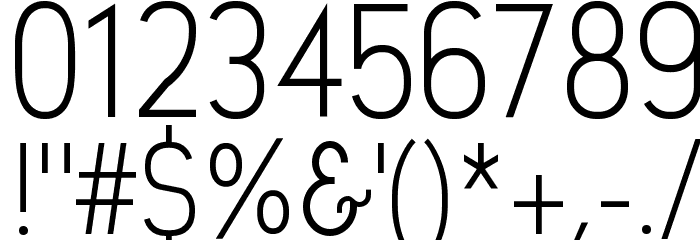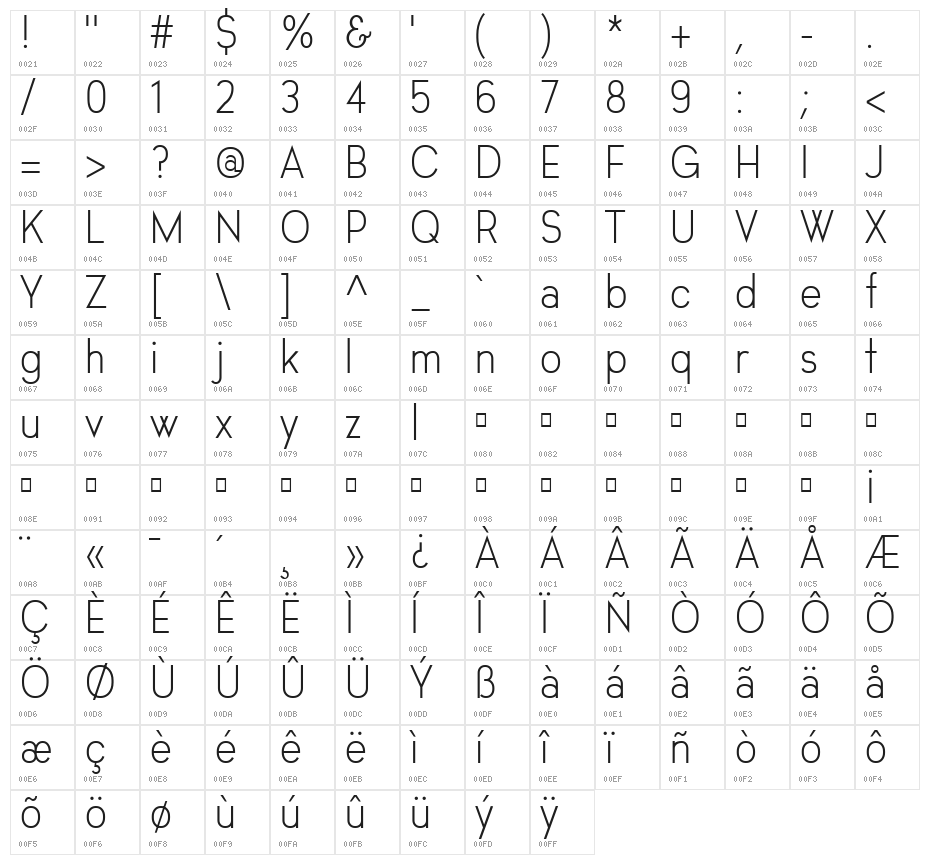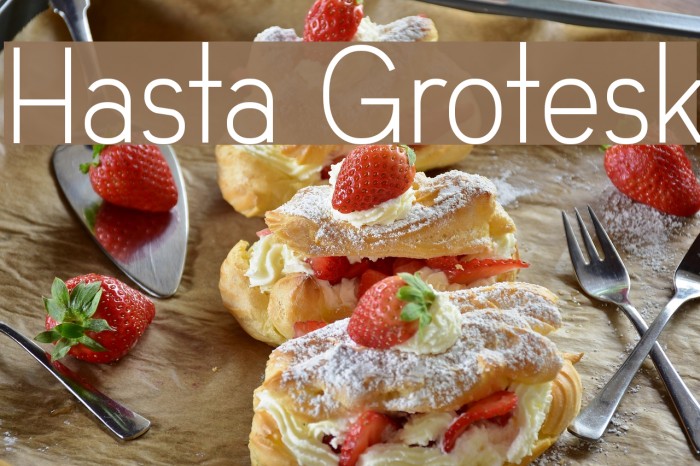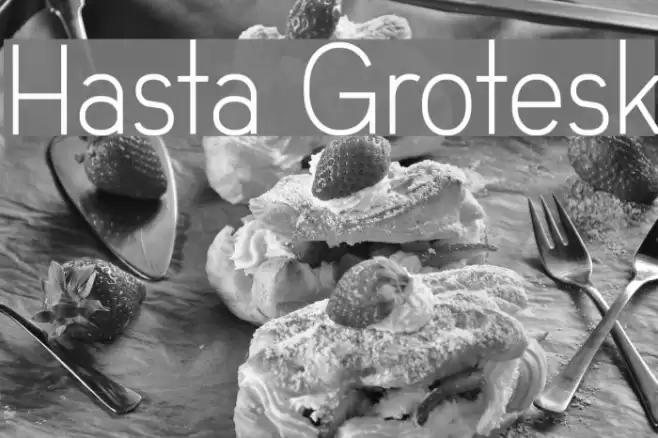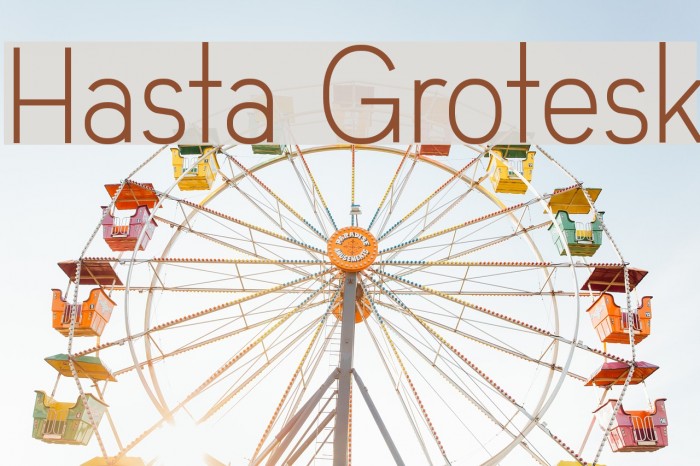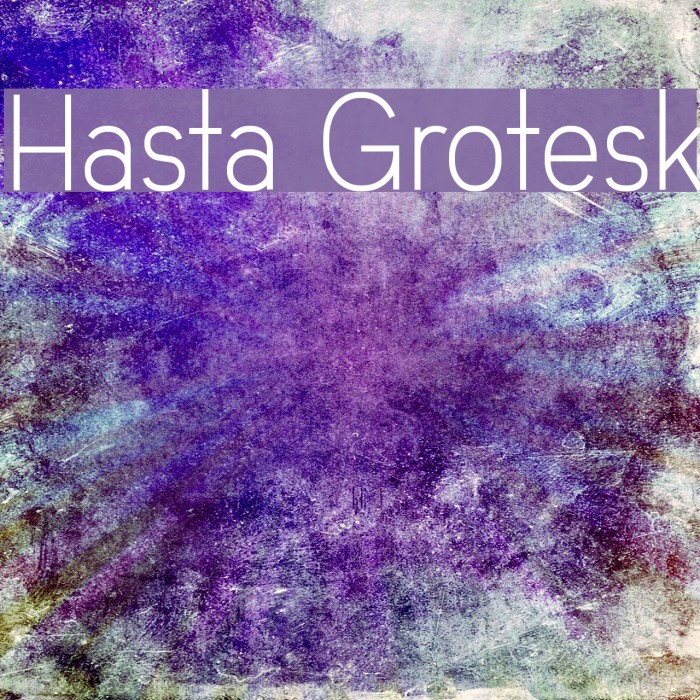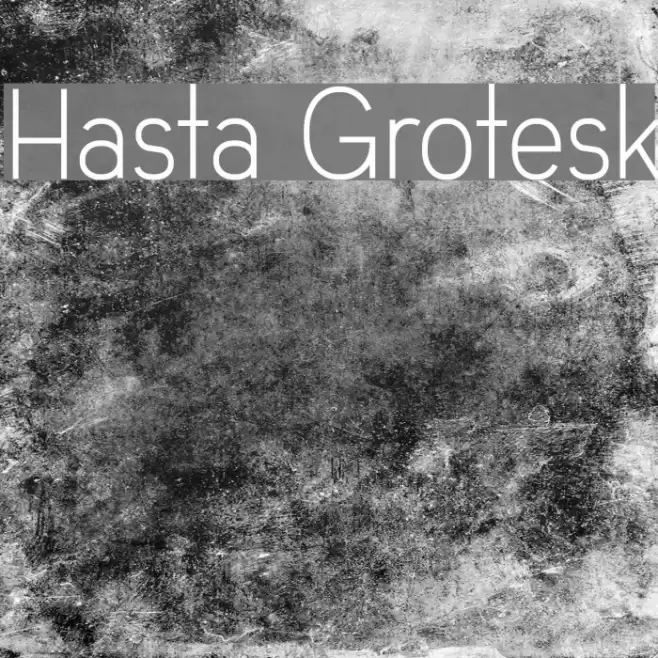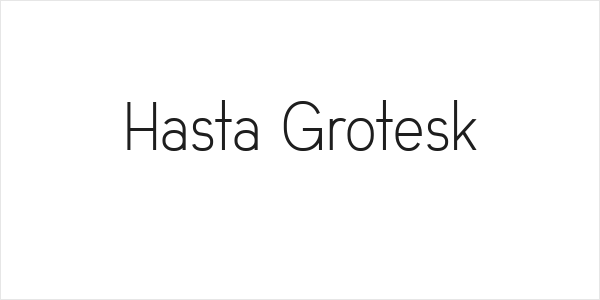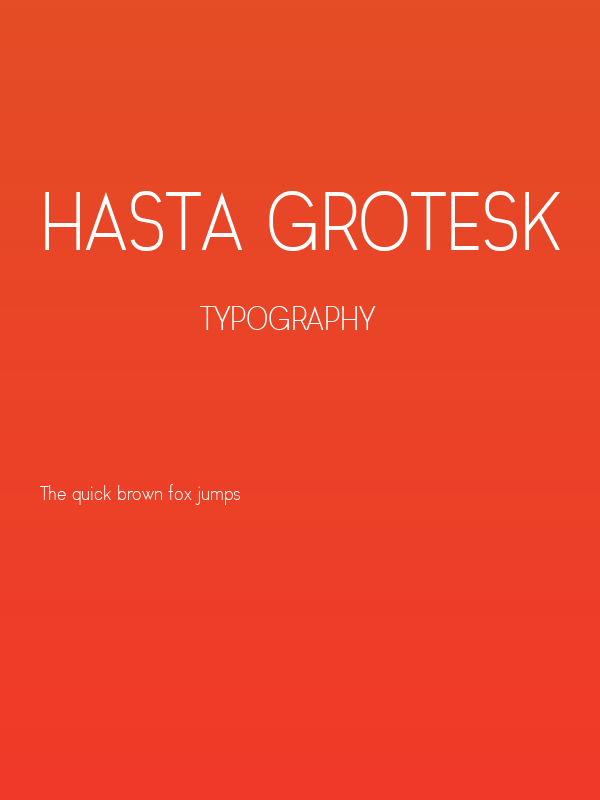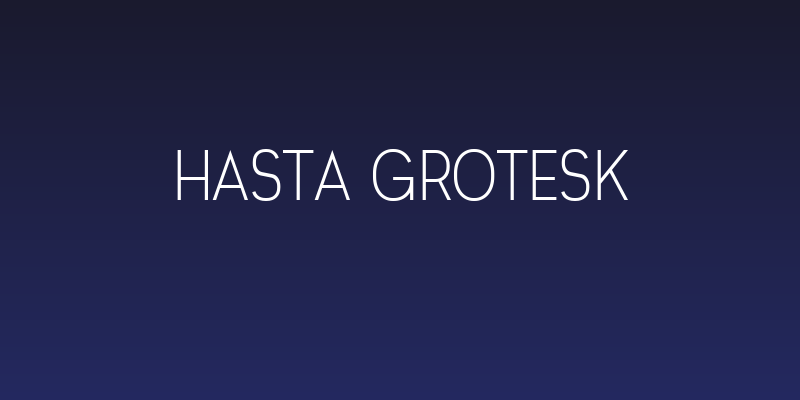
Hasta Grotesk Font
Hasta Grotesk Description
This font features a clean and modern sans-serif design with a geometric structure. The characters are evenly spaced, providing a balanced and harmonious appearance. The uppercase letters are bold and assertive, while the lowercase letters maintain a consistent and smooth flow. The numerals are clear and easily distinguishable, making them suitable for various applications. The special characters are well-integrated, complementing the overall aesthetic. This font's simplicity and clarity make it versatile for both digital and print media.